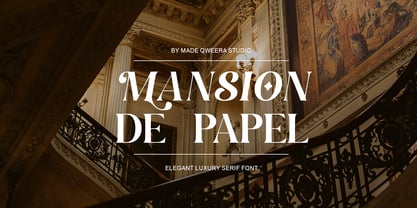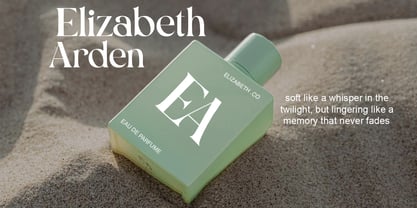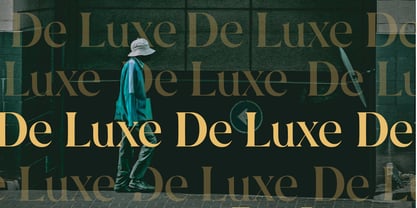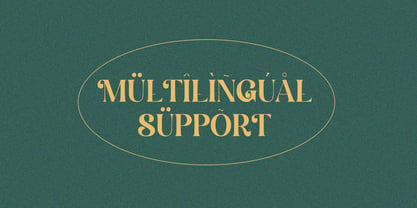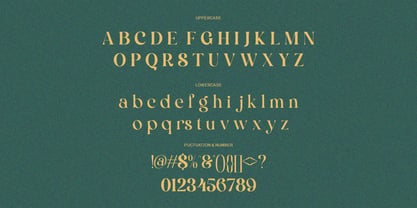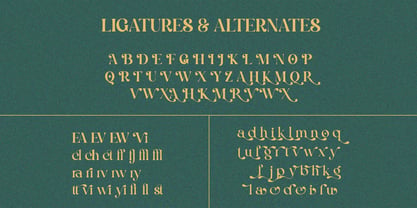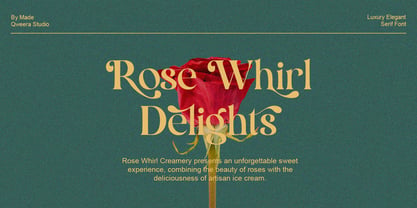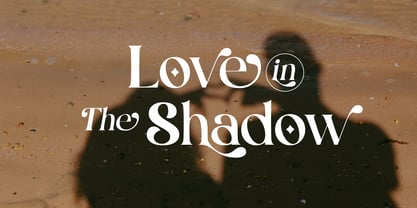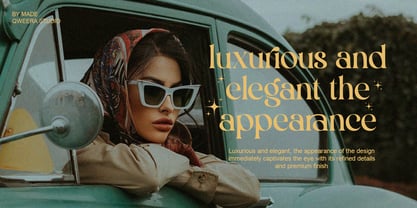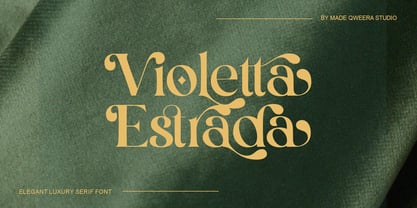
Violetta Estrada
by Qweera Studio
Violetta Estrada - Elegant Luxury Serif for Premium Branding & Editorial Design Violetta Estrada is a refined serif typeface that blends timeless elegance with modern sophistication. Designed with high-end aesthetics in mind, this elegant font features both Regular and Italic styles, along with graceful alternates and stylish ligatures to give your branding projects a distinctive, upscale feel. Timeless Style, Effortless Sophistication With its couture-inspired curves and delicate serif details, Violetta Estrada is the perfect typeface for brands seeking to communicate luxury, femininity, and finesse. Whether you're designing a fashion label, editorial layout, or premium packaging, this font delivers a polished, high-class impression. ★ What's Included: - Elegant Serif Typeface – Inspired by fashion magazines and haute couture - 2 Styles – Regular & Italic for visual variety - 20+ Alternates – Beautiful character options for creative customization - Stylish Ligatures – Designed for smooth, aesthetic typography - Multilingual Support – Includes Western European languages - Ready for Print & Web – Works flawlessly across platforms Perfect For: - Luxury fashion branding - High-end cosmetic and perfume packaging - Elegant wedding invitations - Premium magazine editorials - Feminine logo design - Classy social media templates Elevate Your Design with Violetta Estrada More than just a font - Violetta Estrada is a statement of elegance and sophistication. Make your next project unforgettable with the delicate charm of this luxury serif typeface.